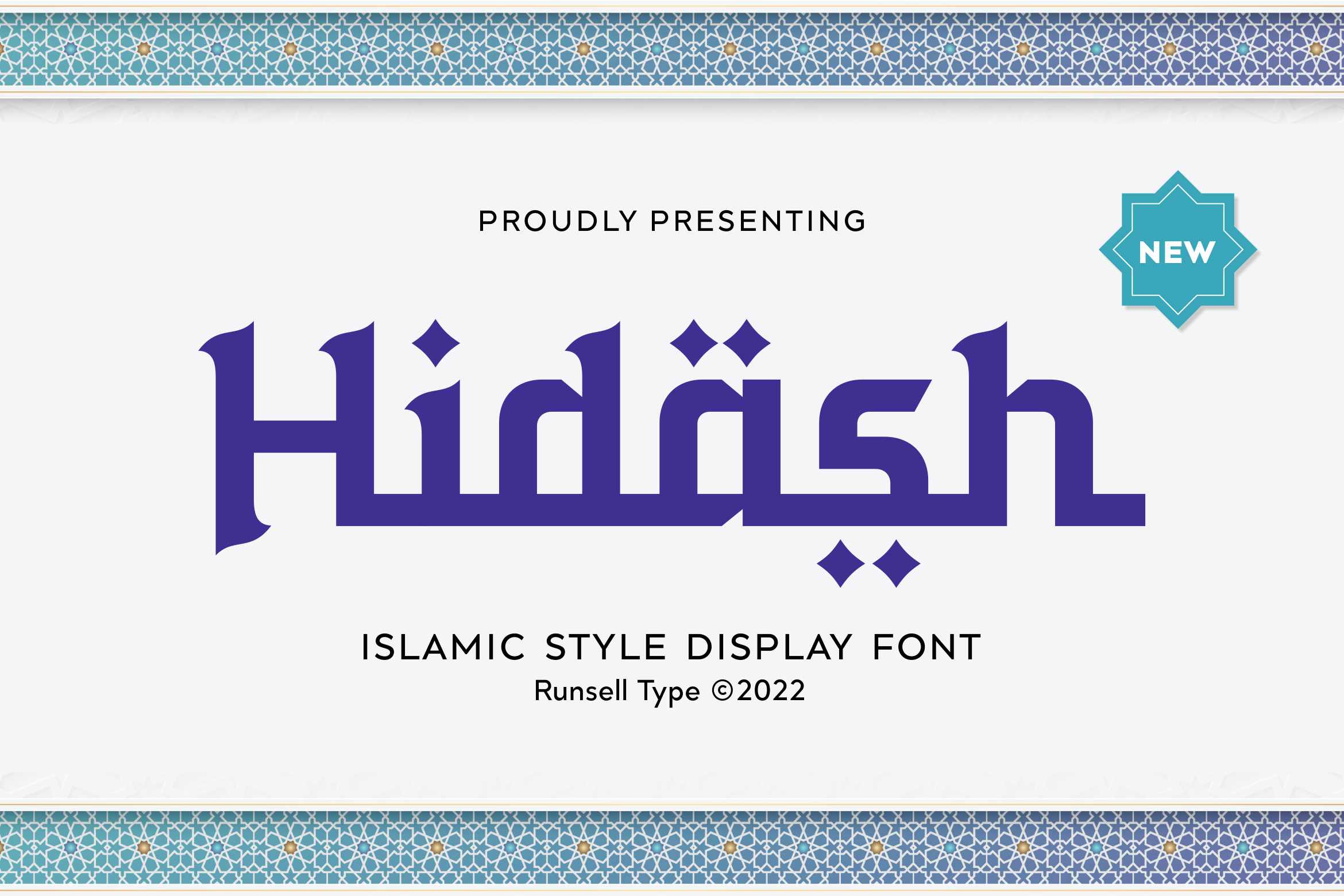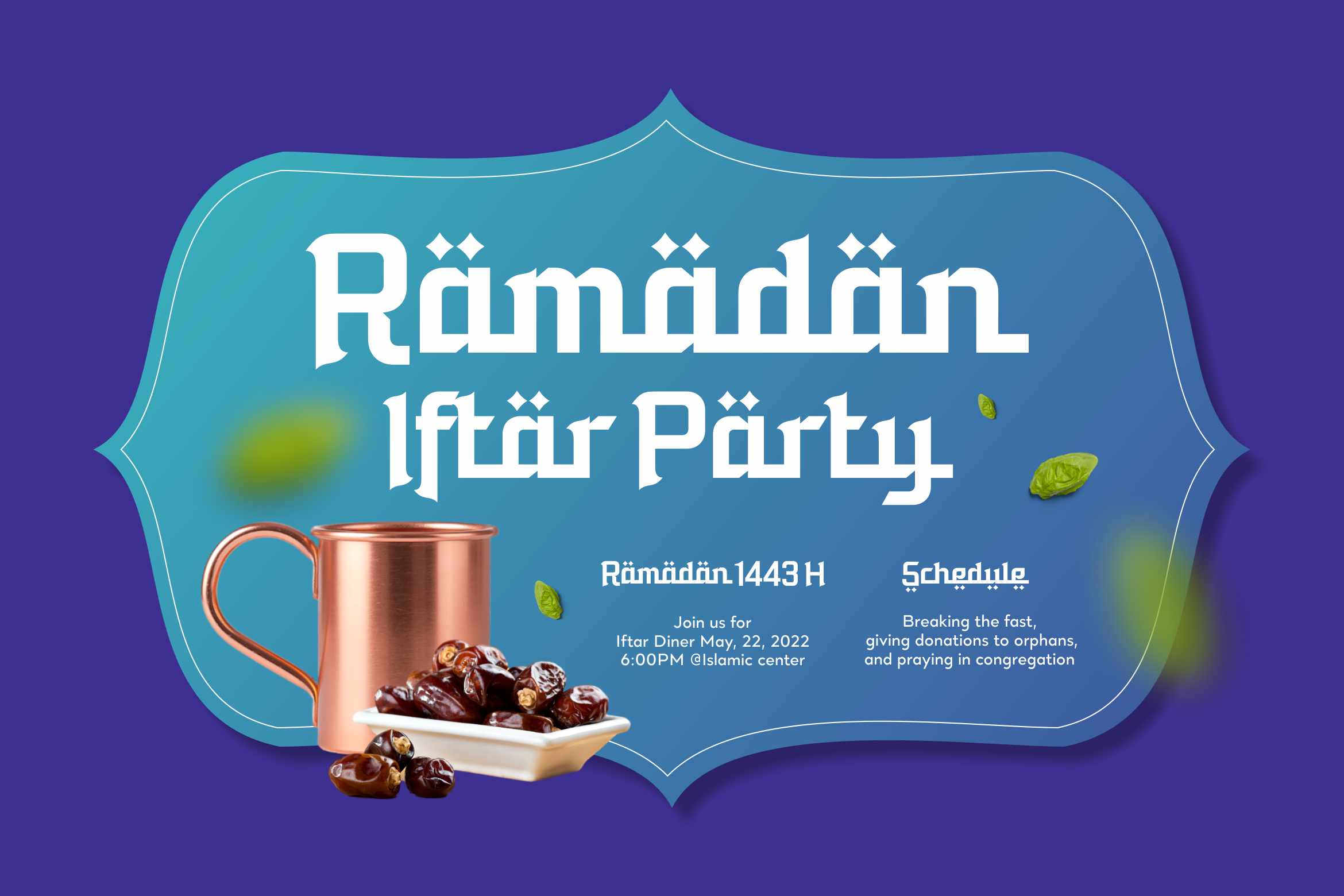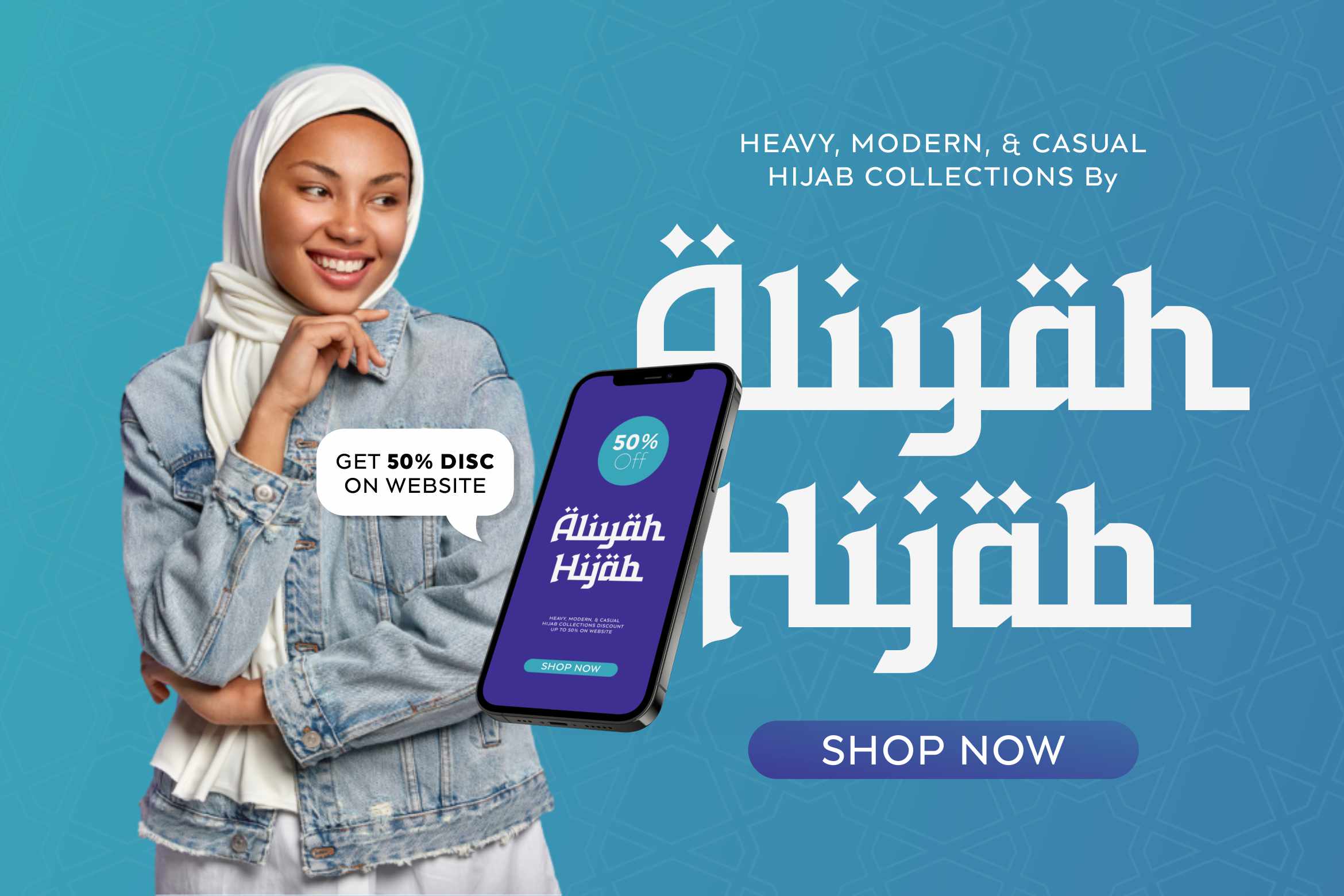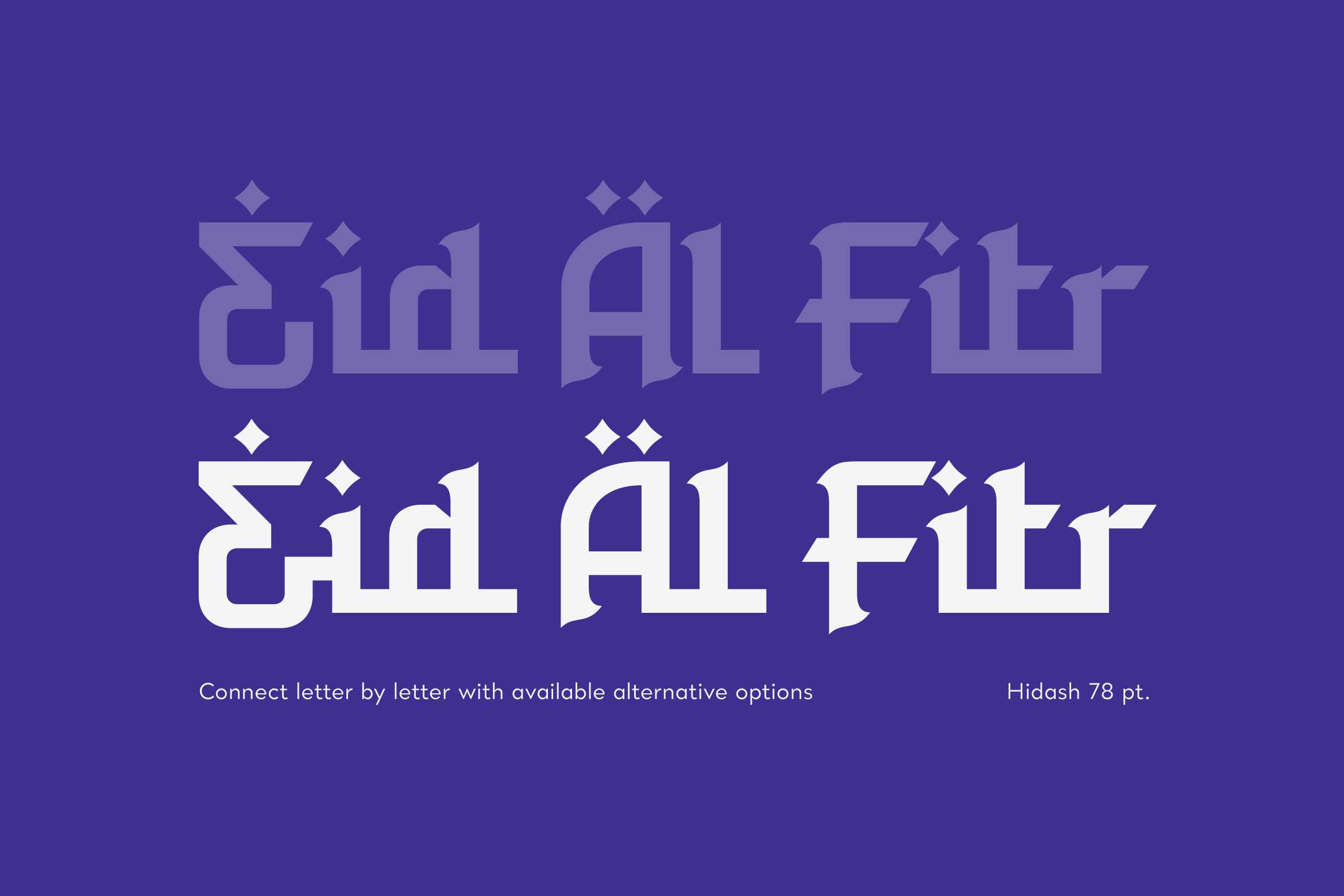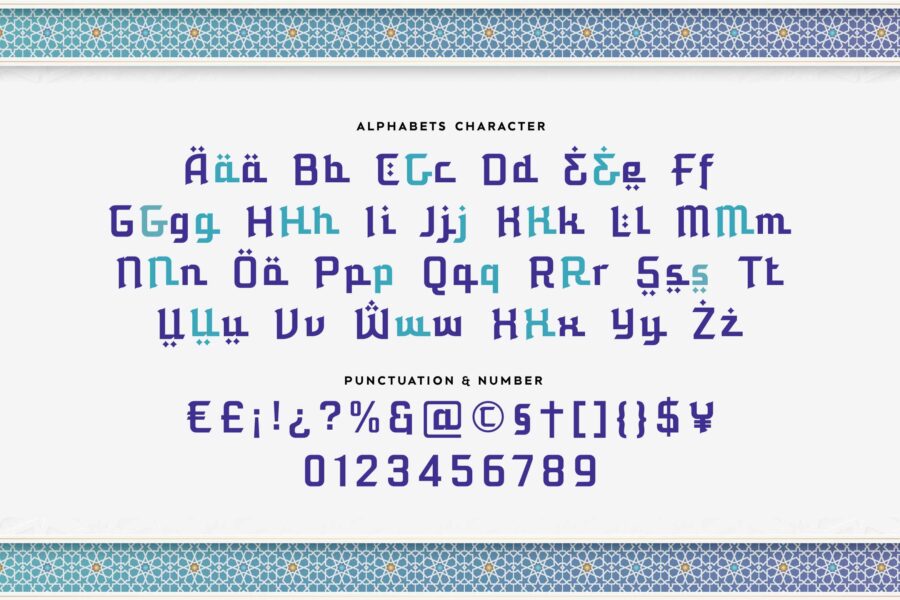
Hidash is a modern Islamic-style display font that blends geometric strength with Arabic visual essence. Its unique letterforms are influenced by Kufic script aesthetics, making it an ideal choice for Islamic event posters, Ramadan campaigns, and spiritual branding. The font carries a bold yet refined structure, combining elegance with a contemporary Middle Eastern flair.
With multilingual support and ligature alternatives, Hidash offers great versatility for both Latin and stylized religious scripts. Perfect for branding projects, digital covers, and product packaging with a Middle Eastern or cultural identity, it brings visual harmony while maintaining legibility and aesthetic impact.
Hidash